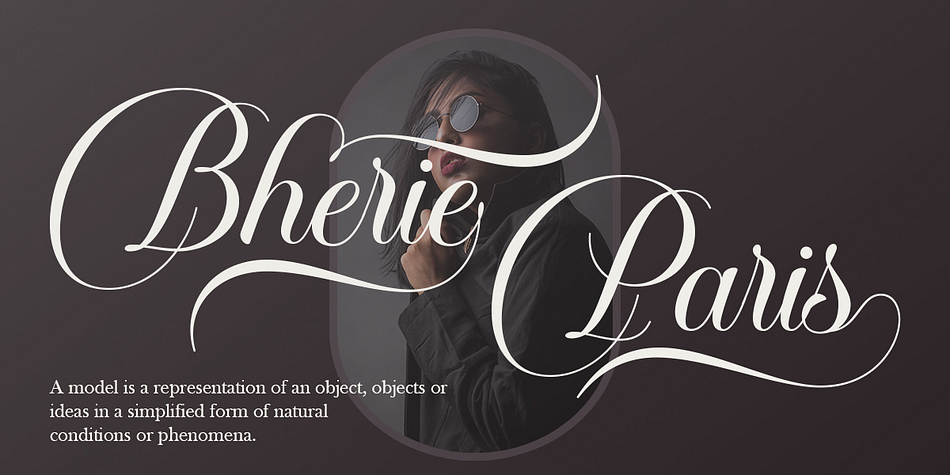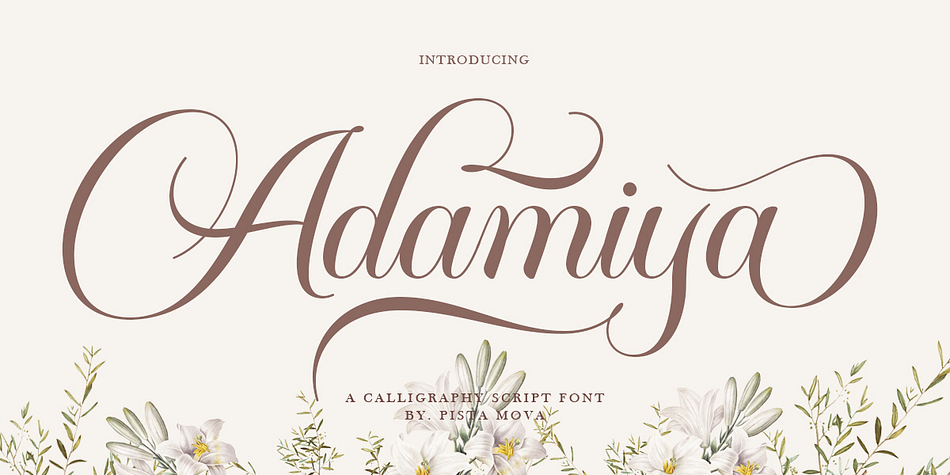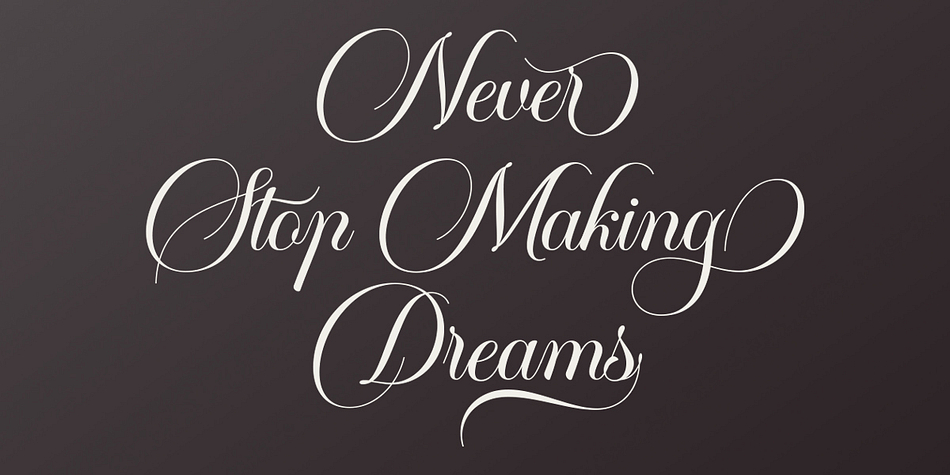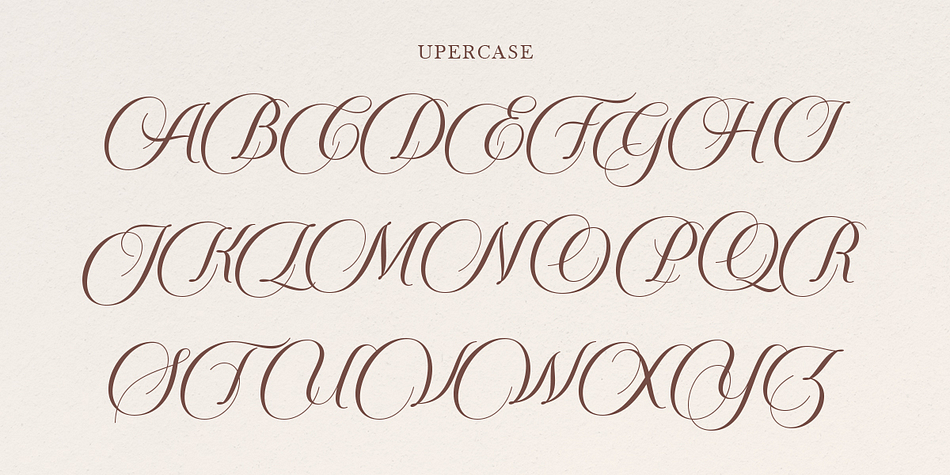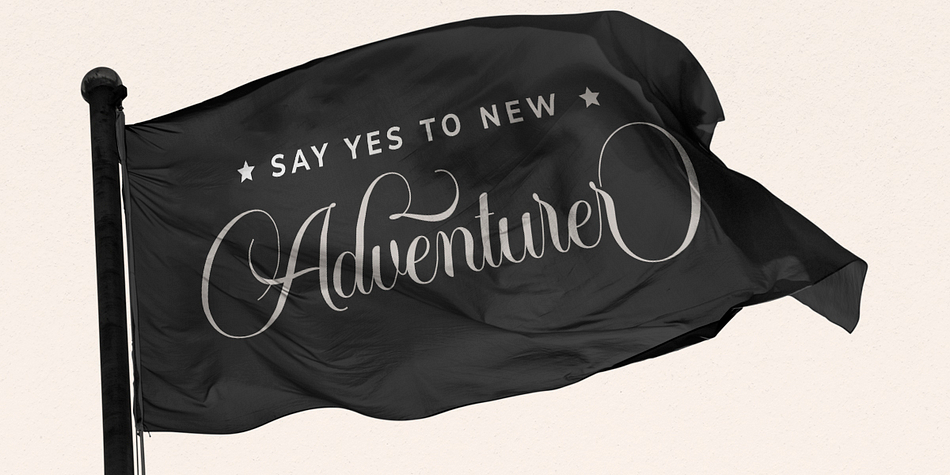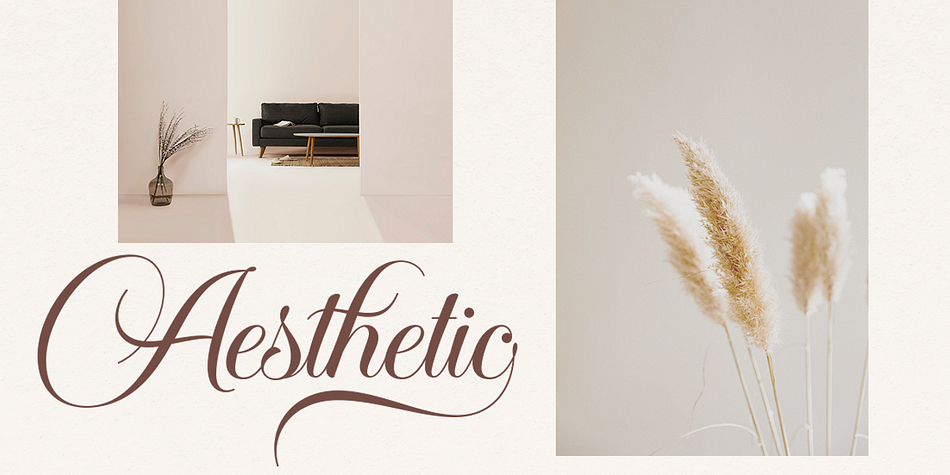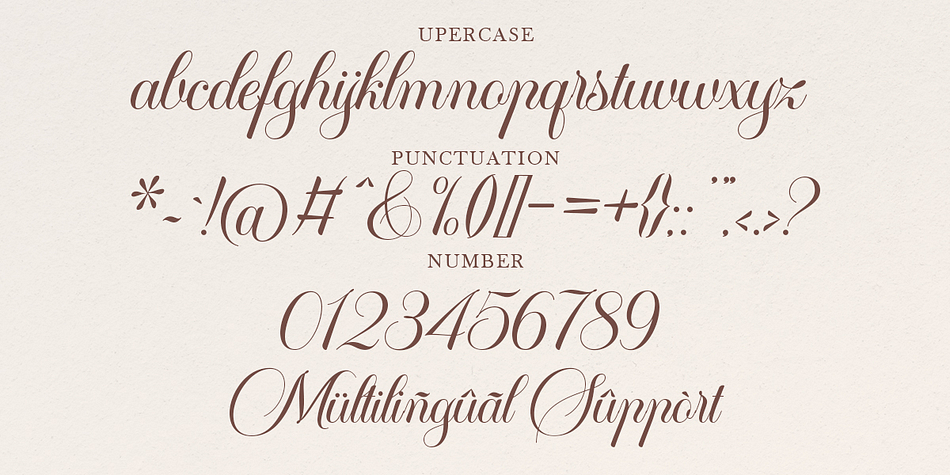
Adamiya
Adamiya is a modern calligraphy and script font family published by Pista Mova.
Adamiya is carefully designed with consistent strokes, this beautiful script font offers a minimalist, luxurious, and classy feel.
Adamiya is inspired by classical calligraphy. This font is perfect for anything that needs an elegant, pretty, feminine, and dramatic look. You can apply this font to weddings, invitations, logotypes, romantic quotes, labels and branding.
Adamiya consists of a complete character set and comes with hundreds of alternative characters that you can use to enhance your designs. As many as 500+ glyphs you can mix and match and multilingual support!
Uppercase
Lowercase
Numbers & punctuation
Stylish alternative